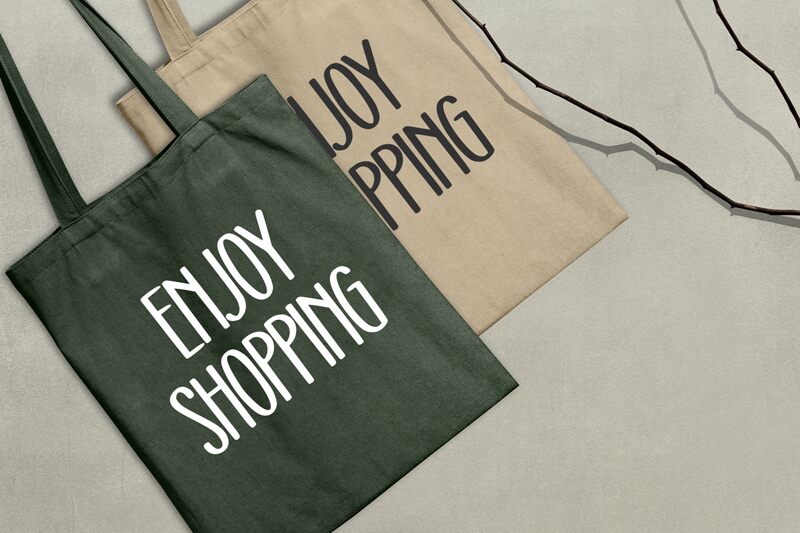
Homeschool font is a modern and clean free handwritten font that features a casual friendly vibe that seems carefree, relaxed, and approachable. Designed by Abo Daniel Studio, this font beautifully balances handwritten authenticity and legibility which makes it so useful in many contemporary applications.
Use it for DIY inspired projects, school and educational projects, informal how-to and guiding instructions, and so on. This font also excels in branding projects, branding strategy, and brand promotion materials. Get started using it on logos, business cards, greeting cards, visual identity stationery, and more.